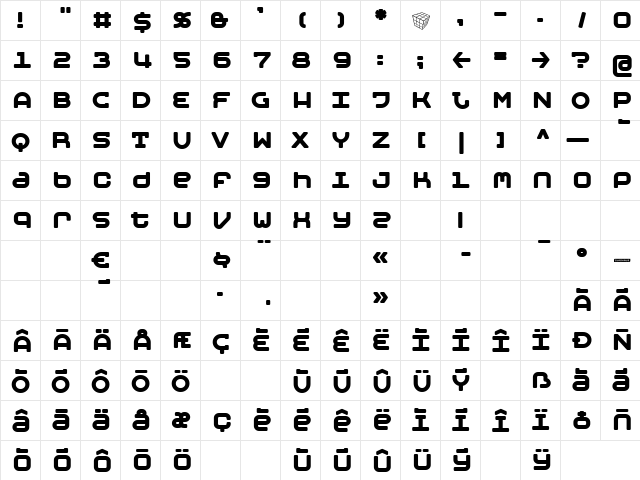
MobyBold Regular
Design Context for MobyBold Typeface
MobyBold offers clean, dependable letterforms without strong stylistic allegiance, making it a practical choice for designers who need flexibility. Its bold stroke weight gives it real presence on the page.
Pro Tip: Use MobyBold in both headline and body roles to test its range before committing to a single application.